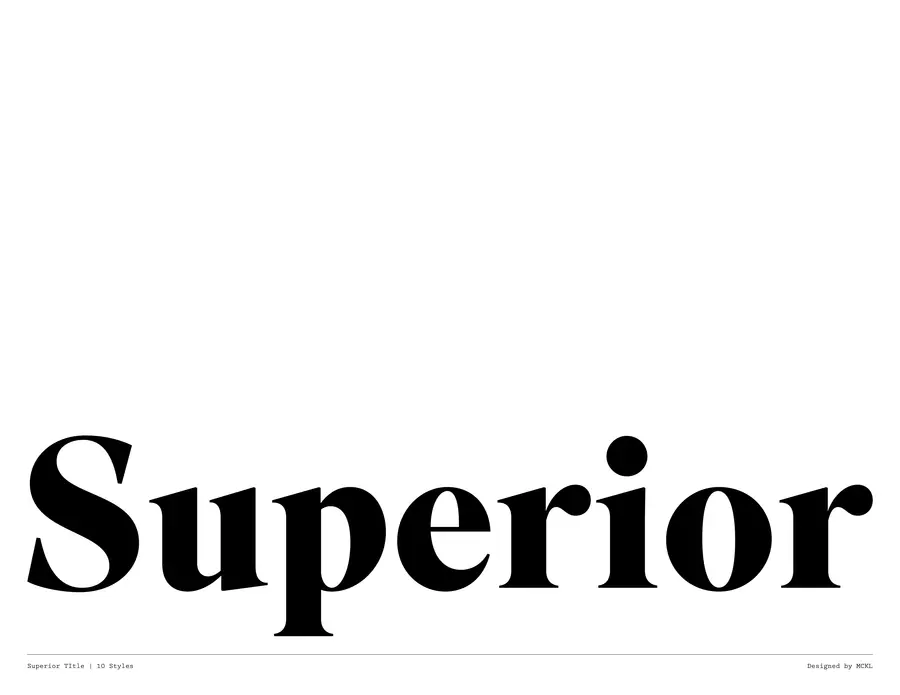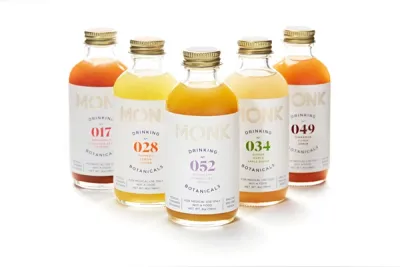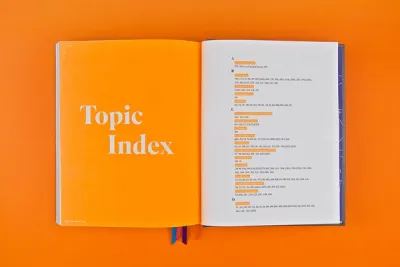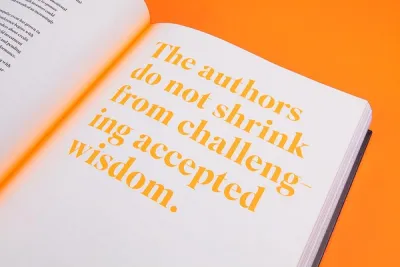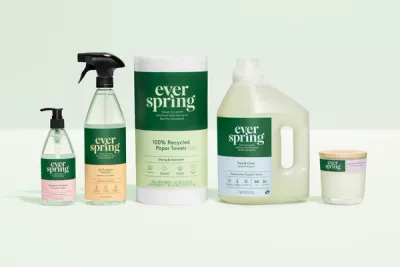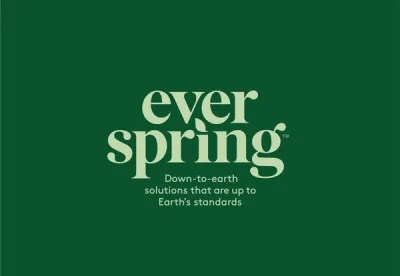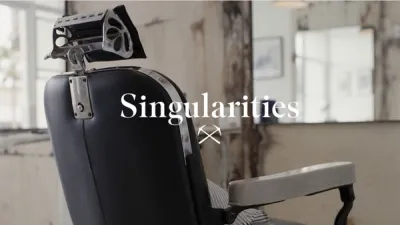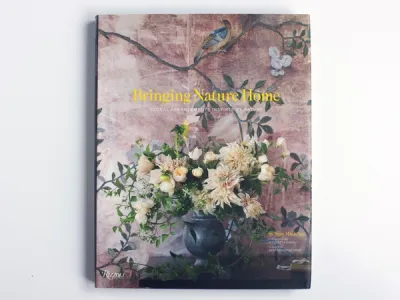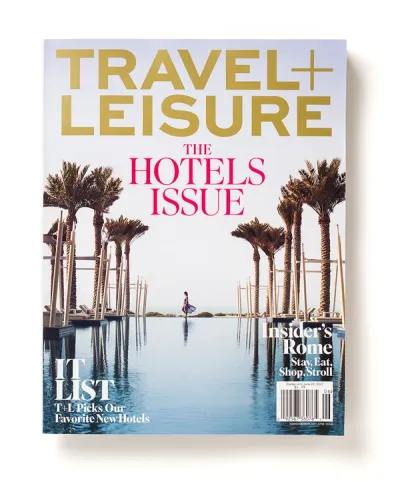
Superior Title
- 10 styles 5 weights Roman and Italic
- Designed by Jeremy Mickel
- Published in 2013
Superior Title is a high contrast transitional typeface, a kind of missing link between Bodoni and Times. The family takes inspiration from naive American titling faces from the early 20th century, including Modern Title, from Barnhard Brothers & Spindler (their trademark was “Superior Copper Mixed Type”), as well as phototype fonts from the 1970s.
- Superior Title Light & Italic
- Superior Title Regular & Italic
- Superior Title Medium & Italic
- Superior Title Bold & Italic
- Superior Title Black & Italic
OpenType Features
Small Capssmcp
Super
abcdefghijklmnopqrstuvwxyz
Ligaturesdlig
flower
fb ff fh fi fj fk fl
ffb ffh ffi ffj ffk ffl
Proportional Lininglnum
16:9
0123456789
alternate gss01
gaming
gğĝģġ
Arrowsss03
|^-><-/^
<-->|^^|/^^\\^^/
Italic Swash Capsss04
Carolina
ACEKMNQRST